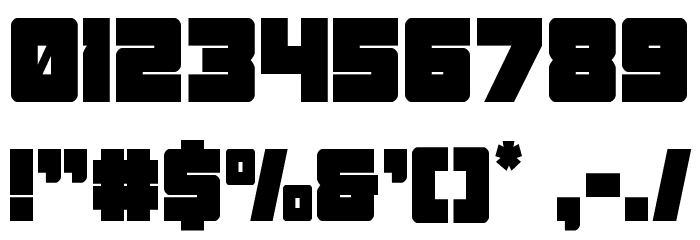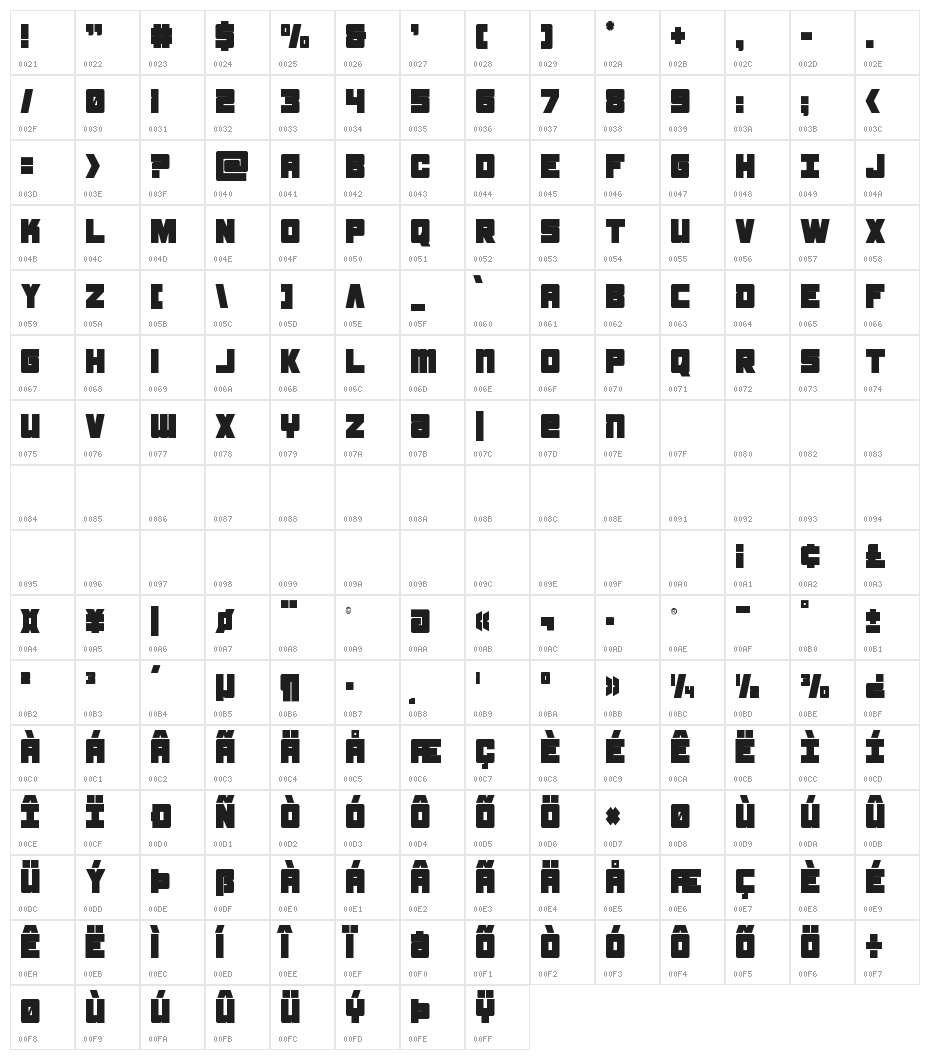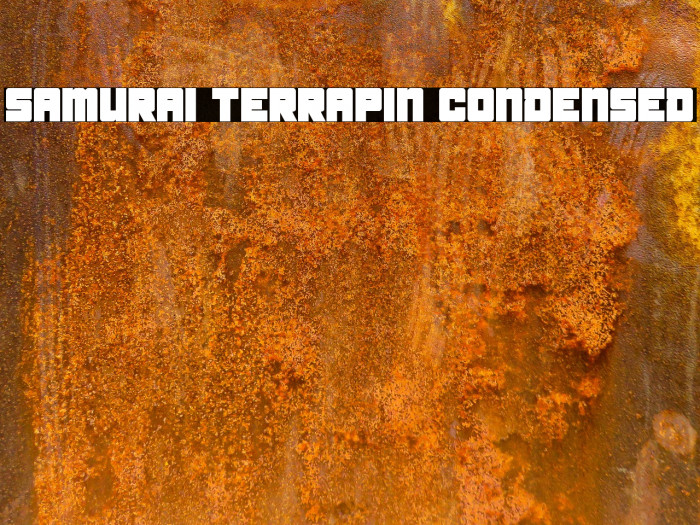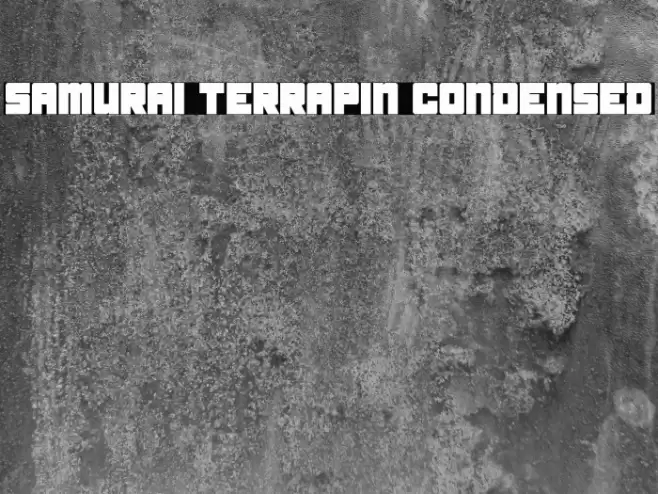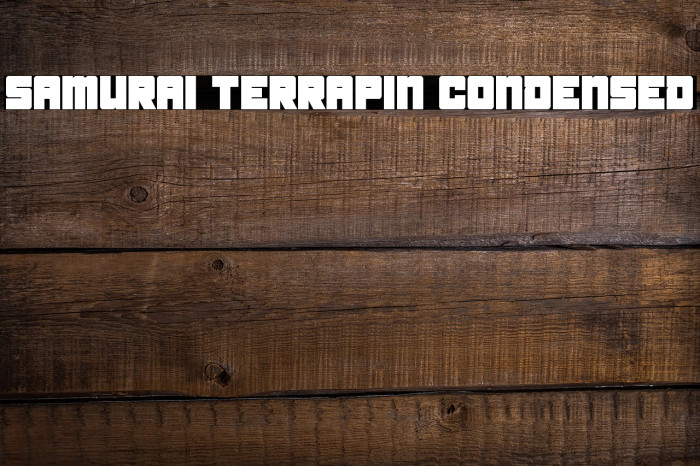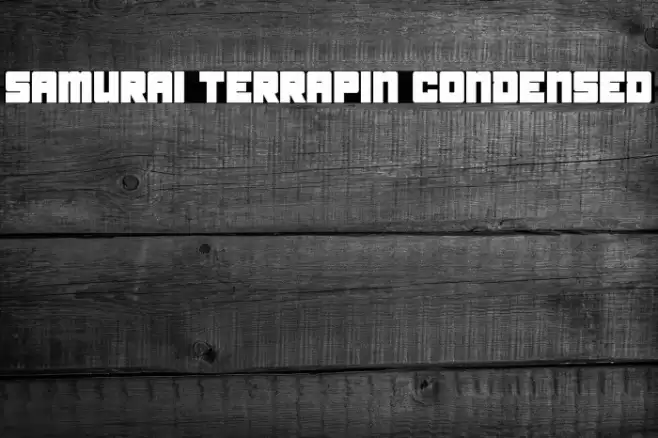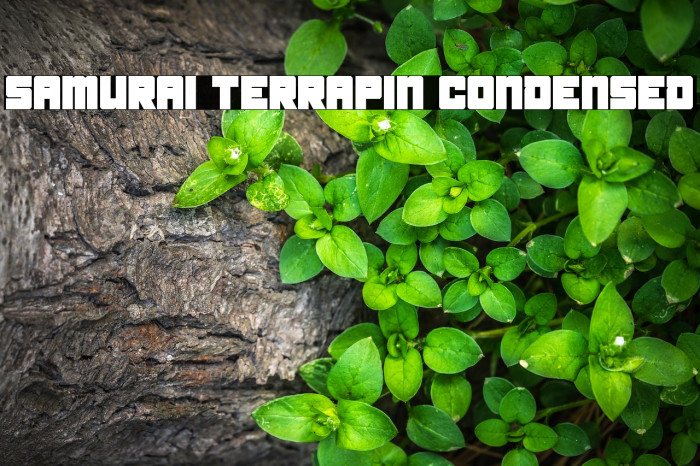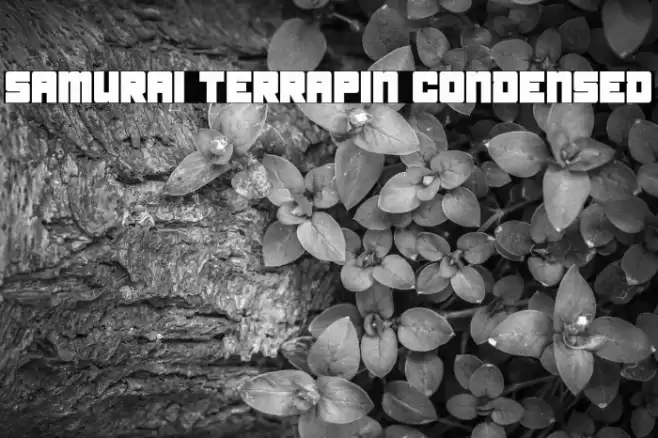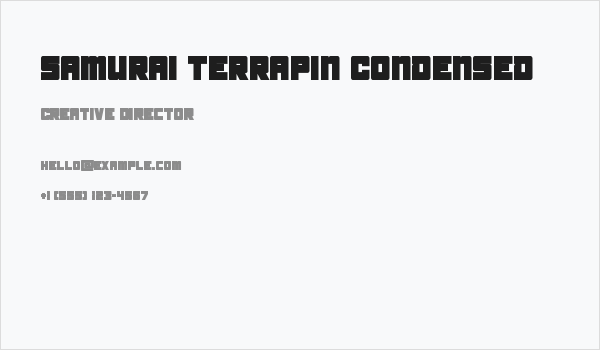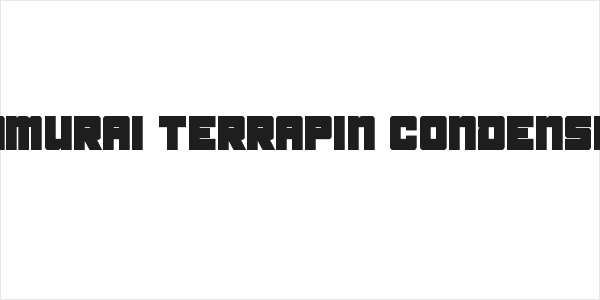
Samurai Terrapin Condensed Font
Samurai Terrapin Condensed Description
This font exhibits a bold and robust design with a strong geometric structure. The characters are blocky and condensed, giving a powerful and impactful appearance. The uppercase and lowercase letters maintain a consistent height, contributing to a uniform and cohesive look. The numbers and special characters follow the same bold style, ensuring readability and emphasis. The font's thick strokes and minimal contrast make it ideal for creating a striking visual presence.